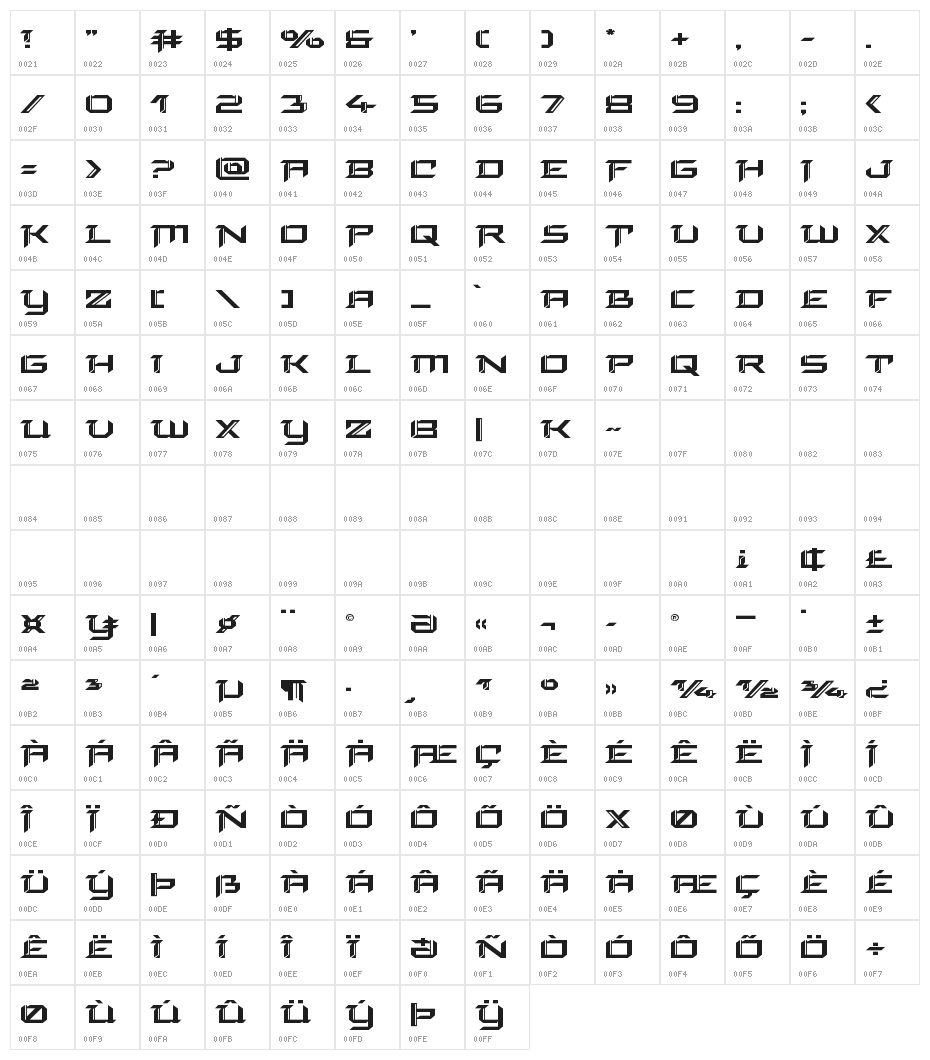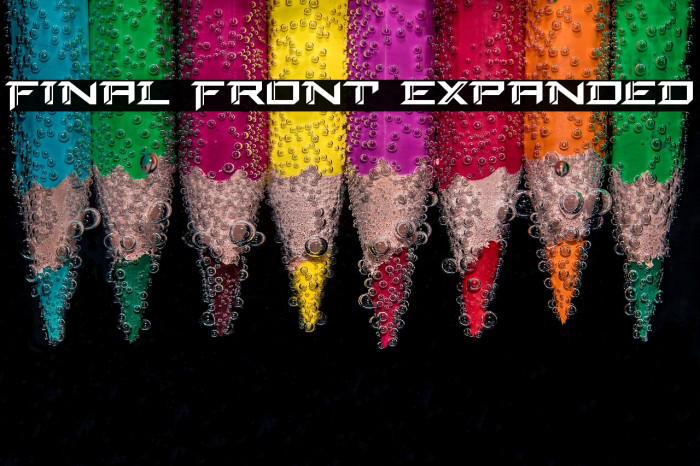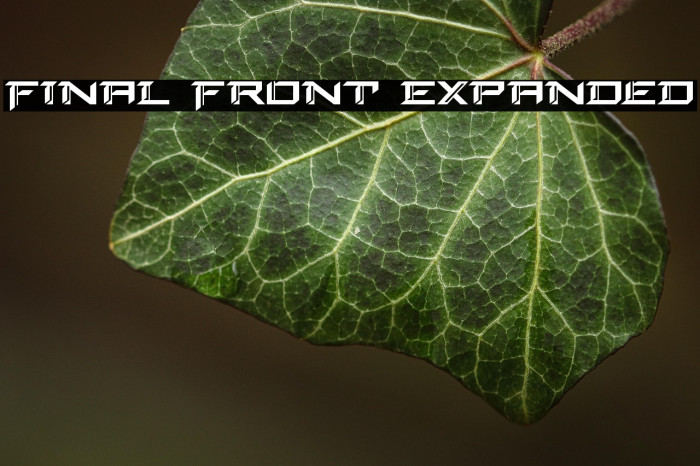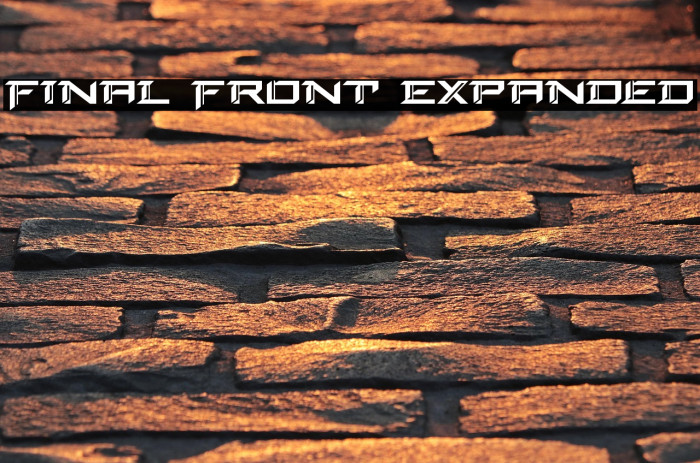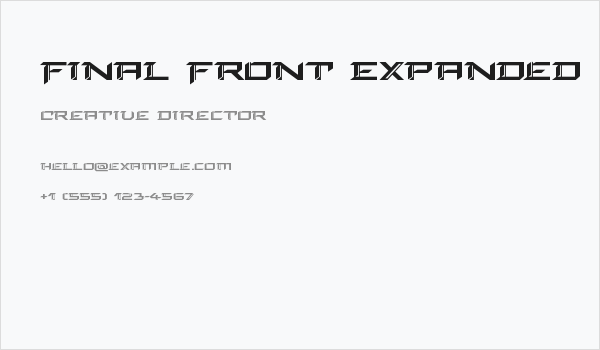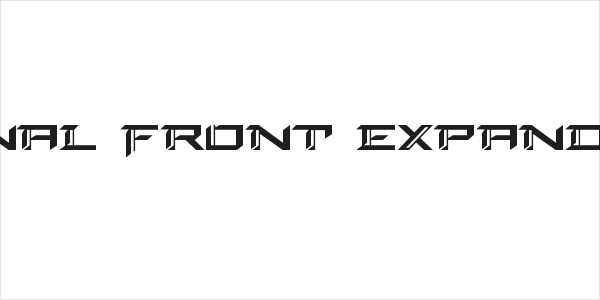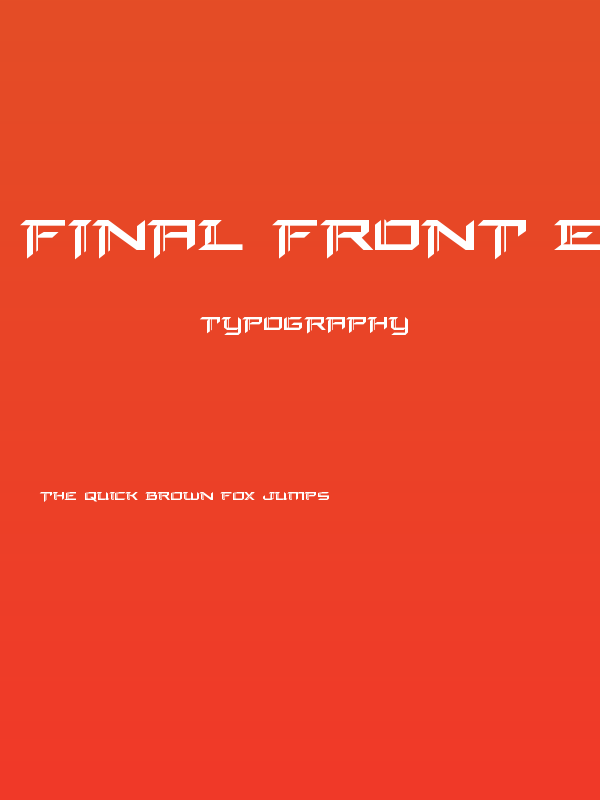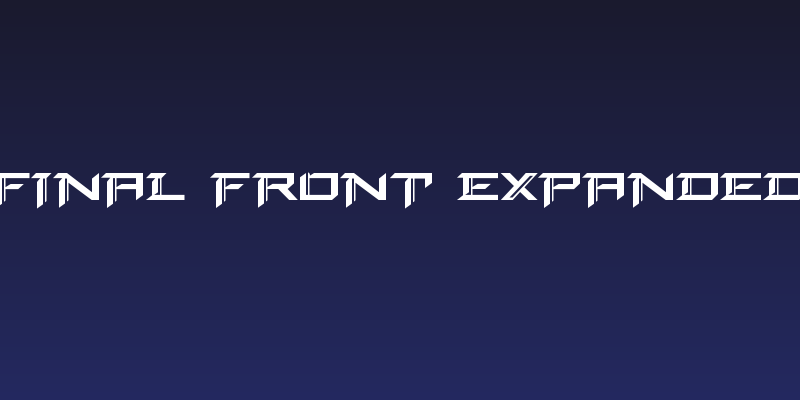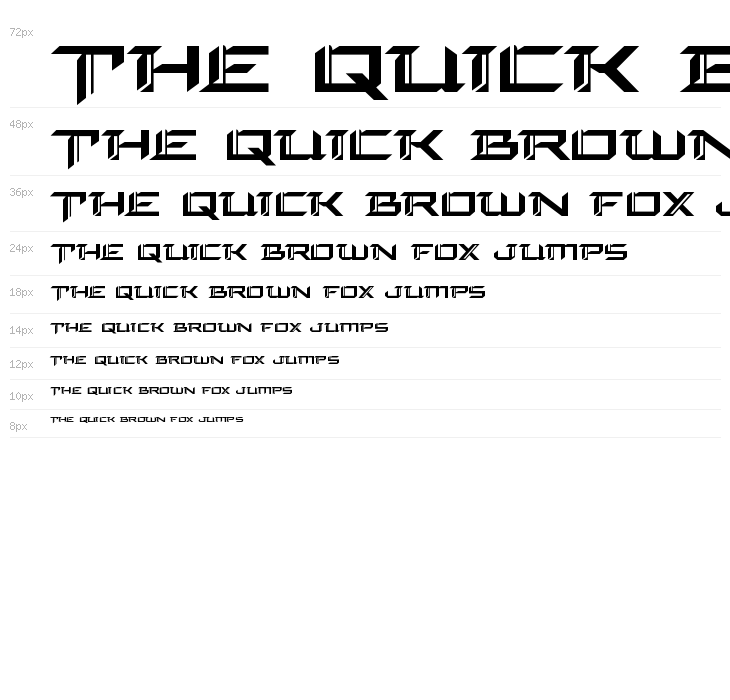
Final Front Expanded Font
Final Front Expanded Description
This font features a futuristic and angular design, characterized by sharp edges and geometric shapes. The uppercase and lowercase letters maintain a consistent style, with a bold and impactful presence. The numerals and special characters follow the same design principles, ensuring uniformity across all glyphs. The font's unique aesthetic makes it stand out, with a modern and edgy vibe that is perfect for attention-grabbing designs. Its expanded width adds to its boldness, making it suitable for headlines and display purposes.
| Proposed Projects | Ideal for sci-fi themed projects, video game titles, tech branding, and futuristic posters. |